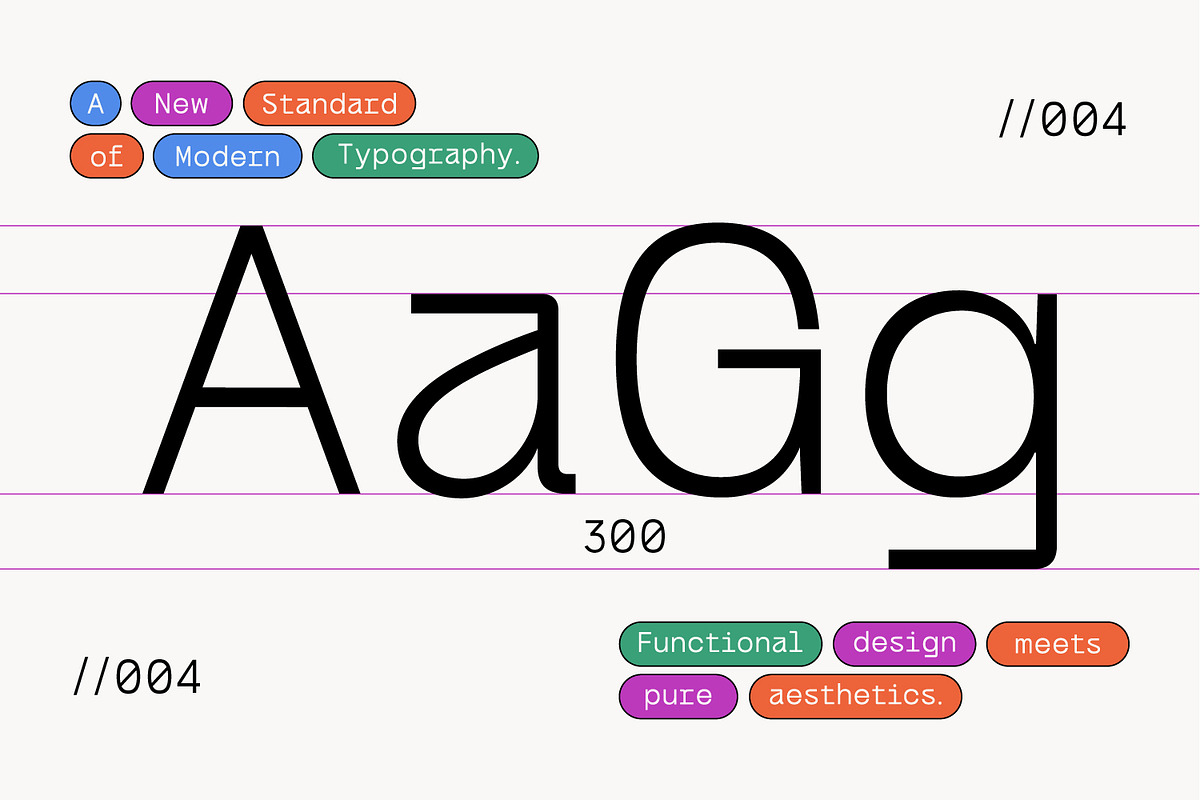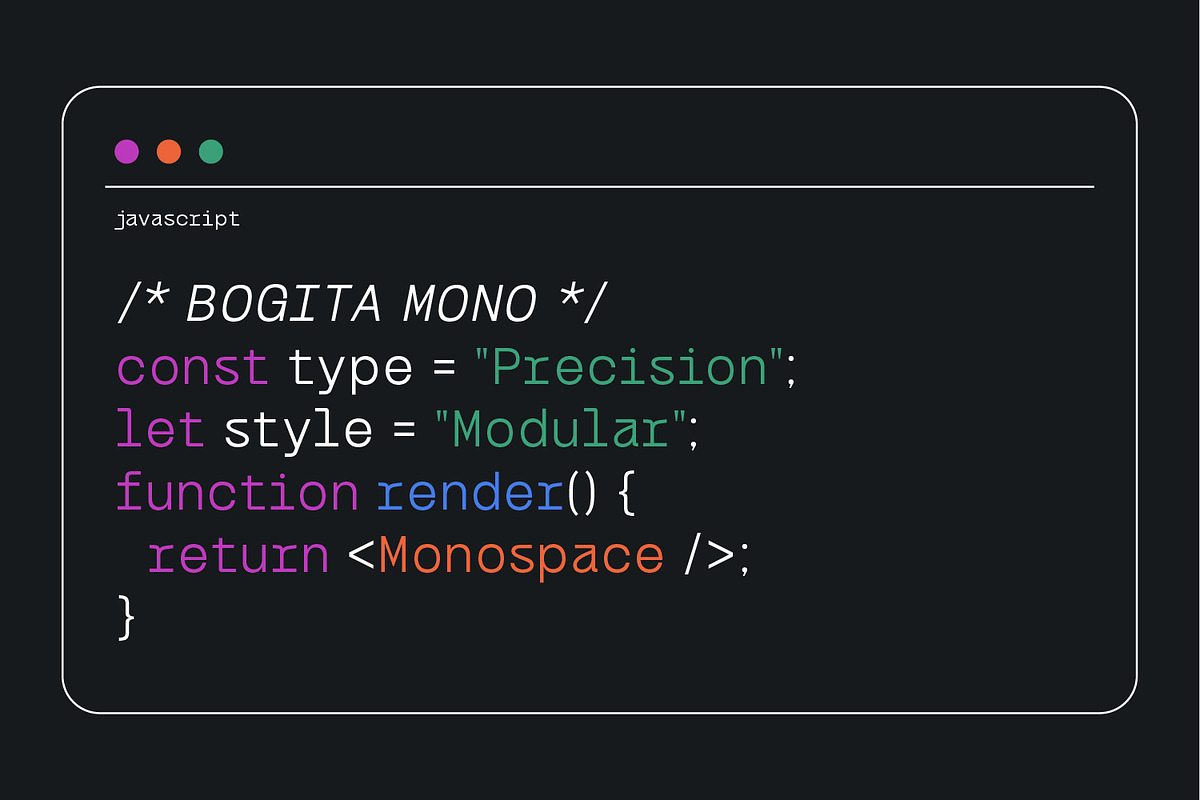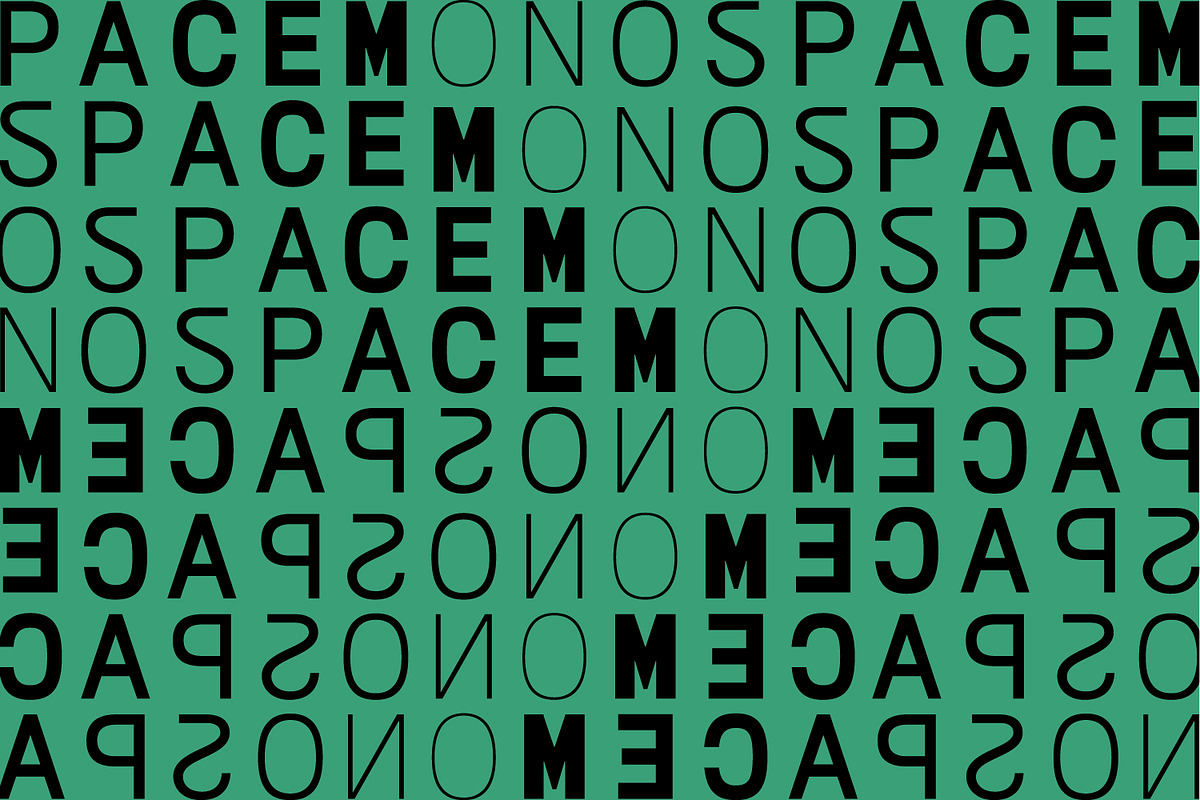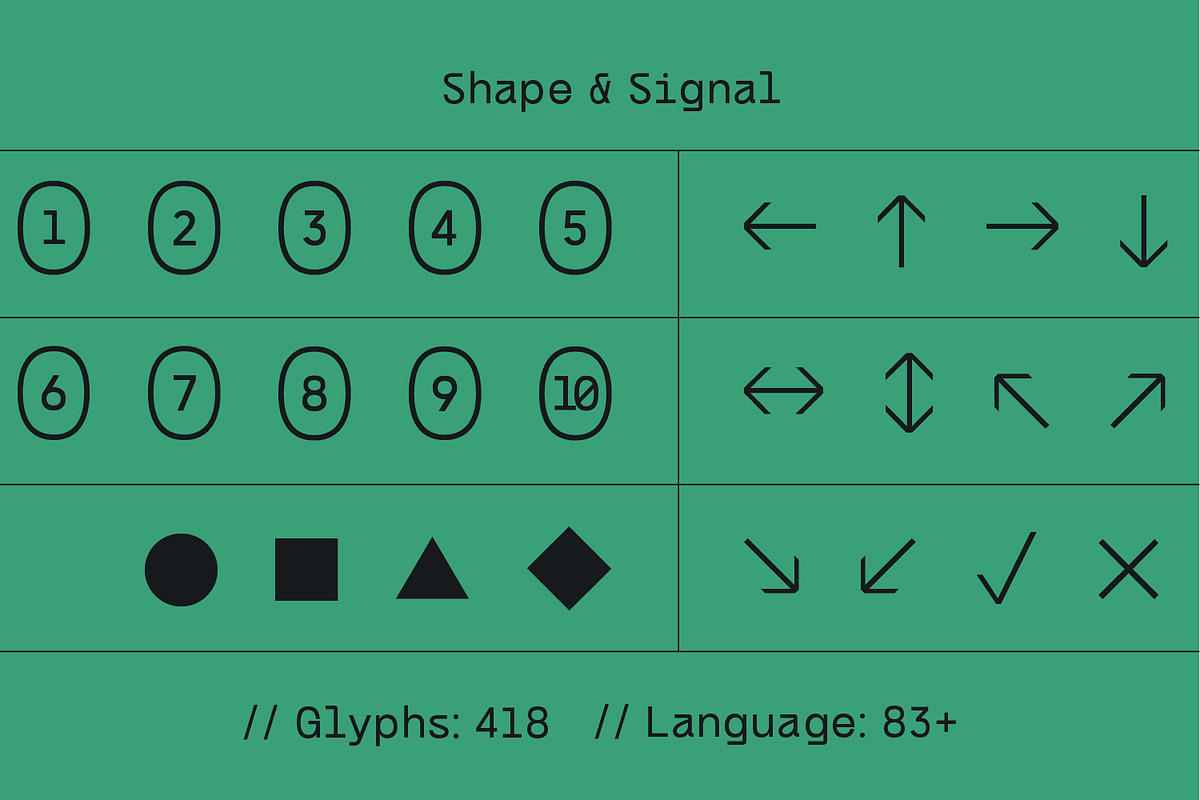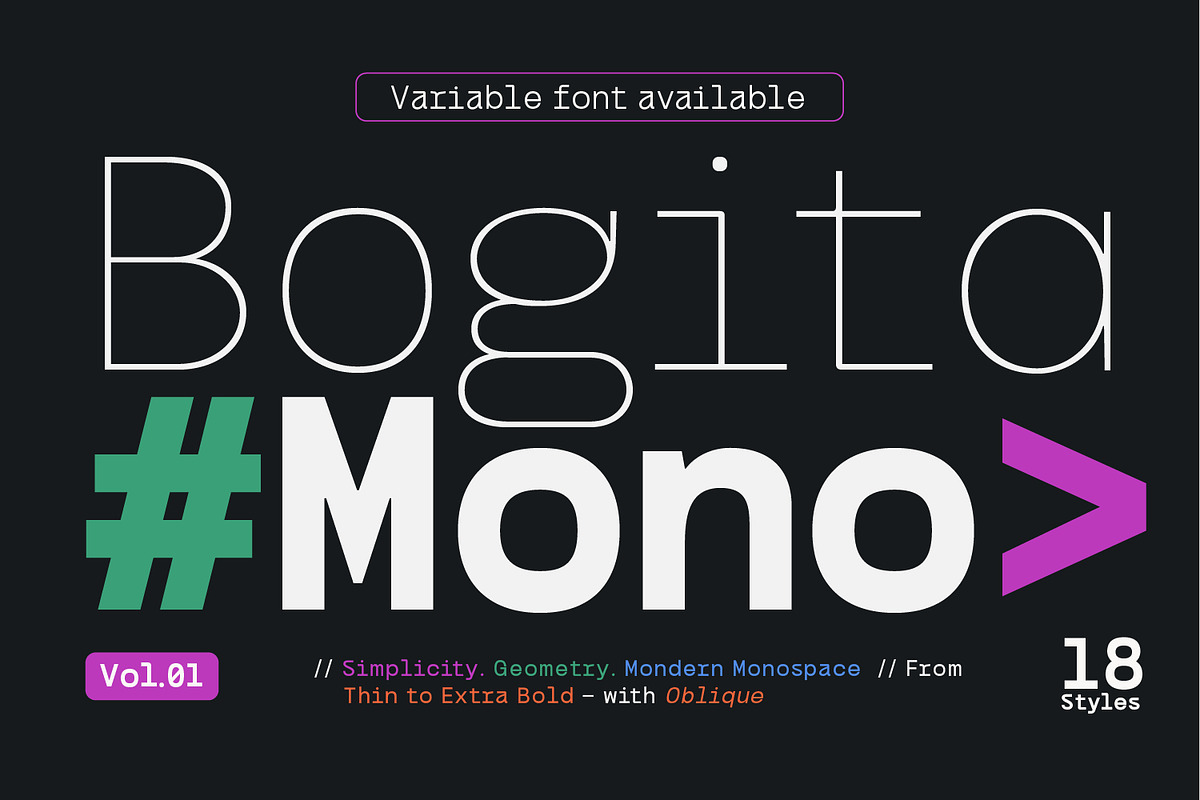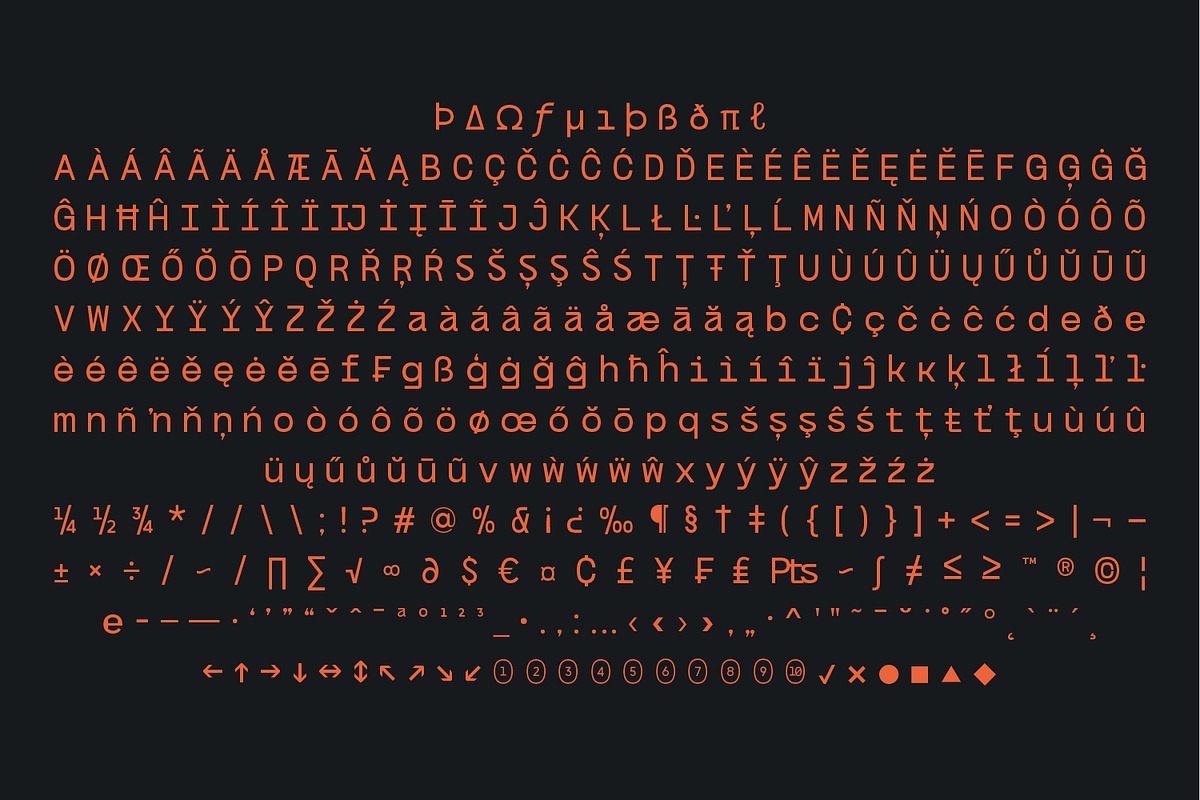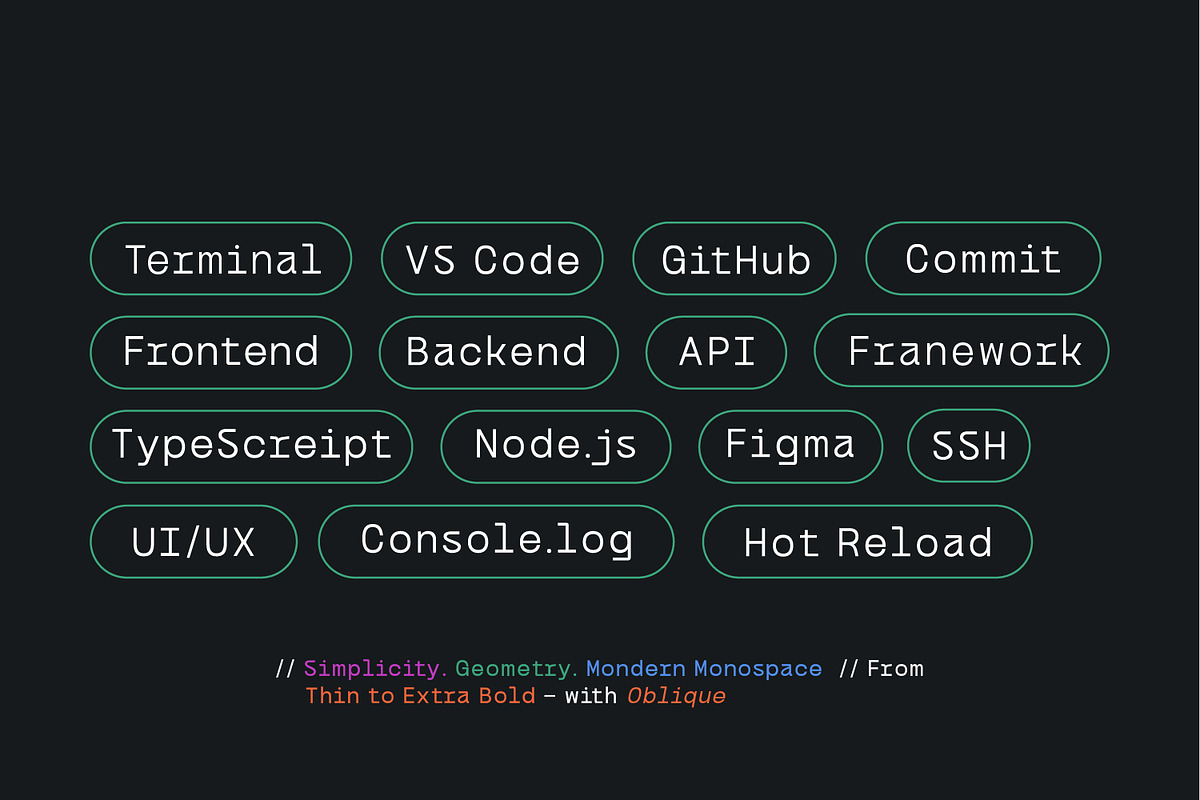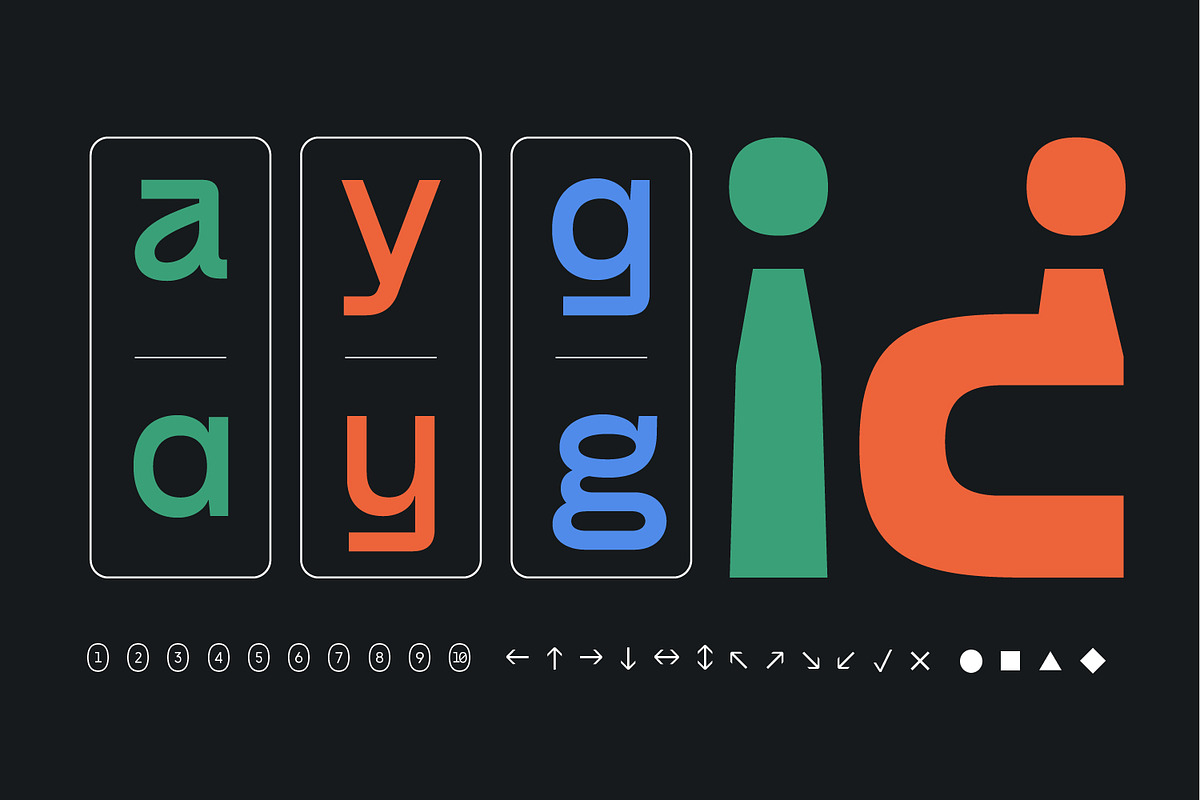
Bogita Mono - Monospace Font
Bogita Mono is a modern geometric monospace typeface designed with simplicity and precision in mind. It blends the clean structure of a coding font with a stylish contemporary aesthetic, making it perfect for digital interfaces, tech branding, and modern editorial layouts.
Available in 18 styles, from Thin to Extra Bold, including Oblique versions and a Variable font, Bogita Mono provides full flexibility for both creative and technical design projects.
- 18 styles: Thin → Extra Bold + Oblique
- Monospaced geometric design
- Numerals & punctuation
- Perfect alignment for code, grid, and UI design
- Coding & developer interfaces
- Tech branding & startups
- UI/UX design
- Editorial layouts
- Modern digital projects